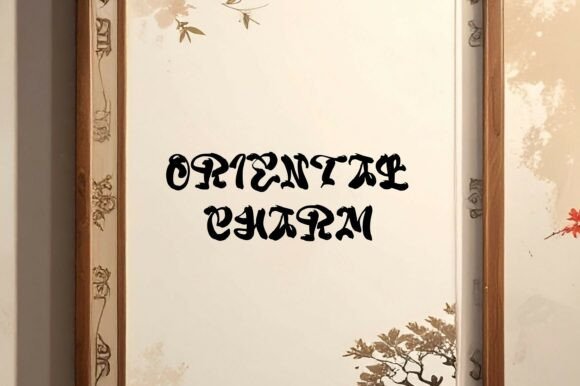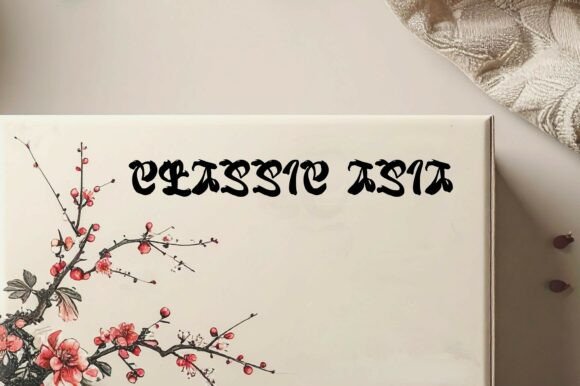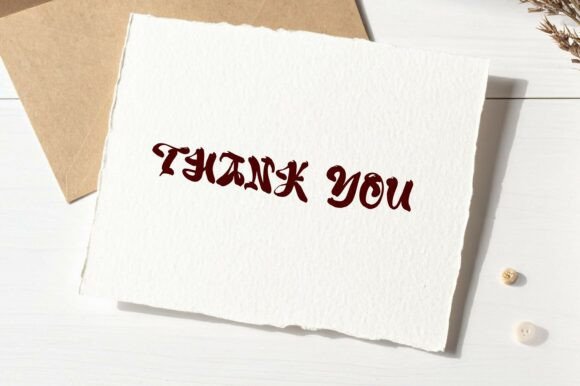
Discover the Charm of Ai Love Font: A Modern Script Font with an Artistic Twist
In the world of typography, fonts play a crucial role in conveying emotions and setting the tone for creative projects. For designers and crafters looking for a unique and expressive font, “AI Love” is a playful and modern script font that has gained popularity for its artistic, brush-stroke feel and faux Asian aesthetic. In this article, we’ll dive into the features and benefits of Ai Love Font, exploring its uses, compatibility, and what makes it stand out from other fonts.
What is Ai Love Font?
“AI Love” is a modern script font that combines the elegance of traditional typography with a contemporary edge. Its unique aesthetic is characterized by a playful, brush-stroke feel that gives it a hand-crafted look. The font’s faux Asian aesthetic adds an exotic touch, making it perfect for designs that require a distinctive and artistic flair.
Key Features of Ai Love Font
- Playful and Modern Script Font: Ai Love Font boasts a modern script style that is both playful and elegant, making it suitable for a wide range of creative projects.
- Artistic, Brush-Stroke Feel: The font’s brush-stroke feel gives it a hand-crafted look that is both charming and expressive.
- Faux Asian Aesthetic: The font’s faux Asian aesthetic adds a unique and exotic touch, making it stand out from other fonts.
- Flowing Letterforms and Organic Lines: Ai Love Font features flowing letterforms and organic lines that give it a friendly and approachable character.
Uses and Compatibility
Ai Love Font is compatible with various creative projects, making it a versatile font for designers and crafters. Some of its ideal uses include:
- Greeting Cards: Ai Love Font is perfect for creating personalized and charming greeting cards for special occasions.
- Invitations: The font’s elegant and artistic feel makes it suitable for designing invitations for weddings, parties, and other events.
- Branding: Ai Love Font can be used for branding projects that require a unique and memorable typography.
- Social Media Graphics: The font’s modern and playful style makes it ideal for creating engaging social media graphics.
Ai Love Font offers several benefits for designers and crafters, including:
- Unique Aesthetic: The font’s distinctive aesthetic makes it stand out from other fonts, allowing designers to create unique and memorable designs.
- Elegance and Contemporary Edge: Ai Love Font combines elegance with a contemporary edge, making it perfect for designs that require a touch of sophistication.
- Time-Saving: The font’s versatility and compatibility with various creative projects save designers and crafters time and effort.
Tips for Using Ai Love Font
To get the most out of Ai Love Font, here are some tips for using it effectively:
- Pair it with Other Fonts: Ai Love Font can be paired with other fonts to create a unique and visually appealing typography.
- Experiment with Colors: The font’s artistic feel can be enhanced by experimenting with different colors and textures.
- Use it for Headlines and Titles: Ai Love Font is perfect for creating eye-catching headlines and titles that require a touch of elegance and sophistication.
Ai Love Font is a modern script font that offers a unique and artistic twist on traditional typography. Its playful, brush-stroke feel and faux Asian aesthetic make it a standout font for designers and crafters. With its versatility, compatibility, and benefits, Ai Love Font is an excellent choice for creative projects that require a touch of elegance, sophistication, and artistic flair.
Whether you’re a designer or crafter, Ai Love Font is a font worth exploring. Its charm and expressiveness make it perfect for creating memorable designs that convey warmth, personalization, and a touch of artistic flair.